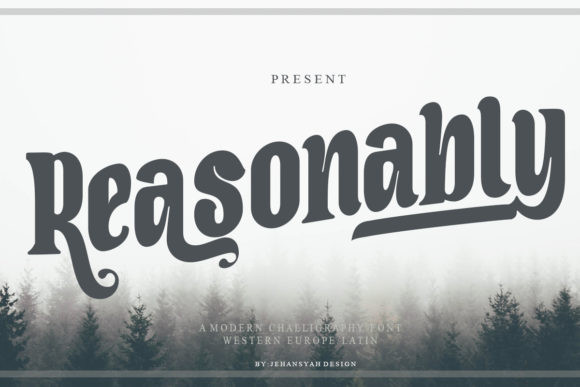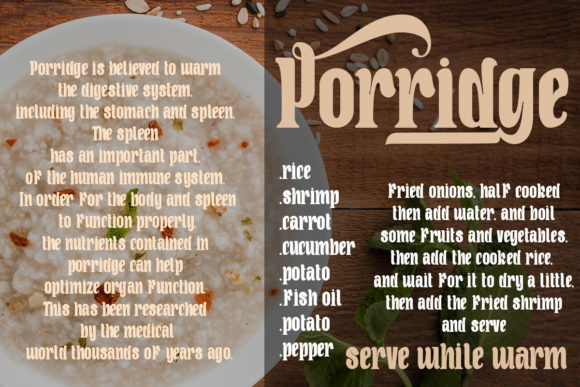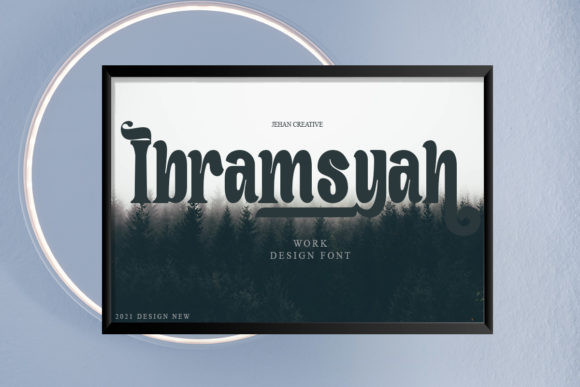
Reasonably Font
Reasonably is a modern handwritten font, created with the help of a brush pen. Masterfully designed to become a true favorite, this font has the potential to bring each of your creative ideas to the highest level!